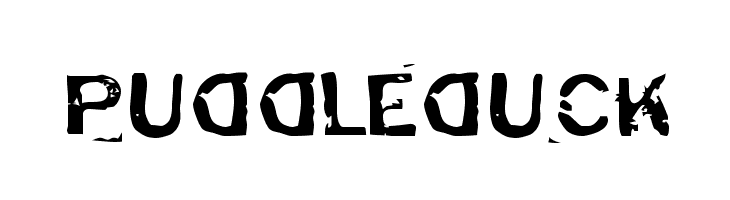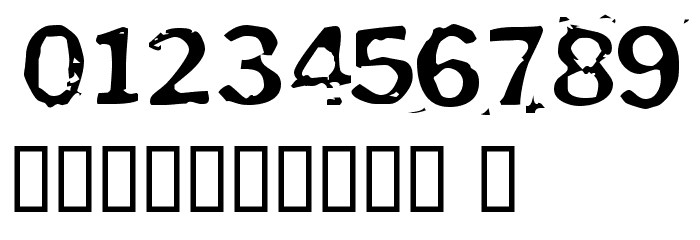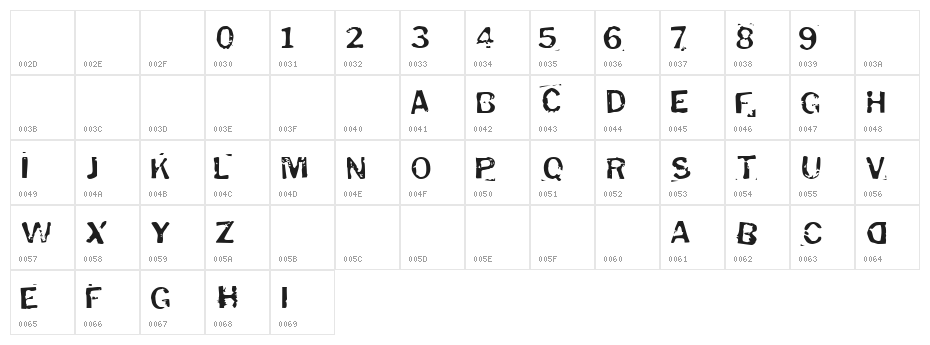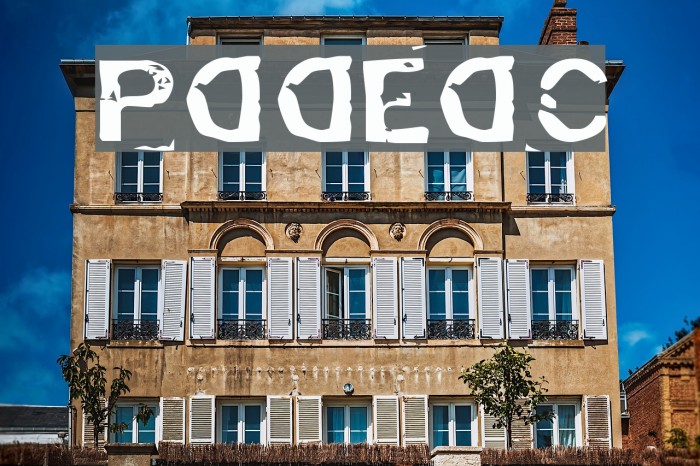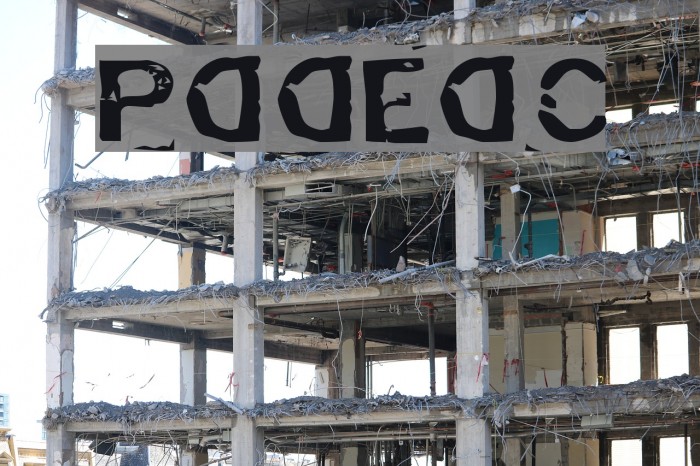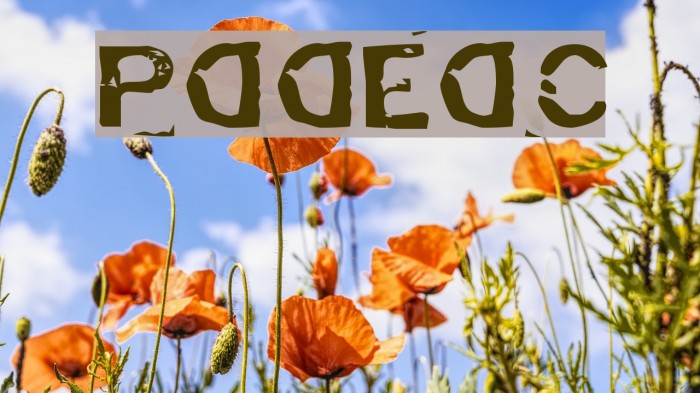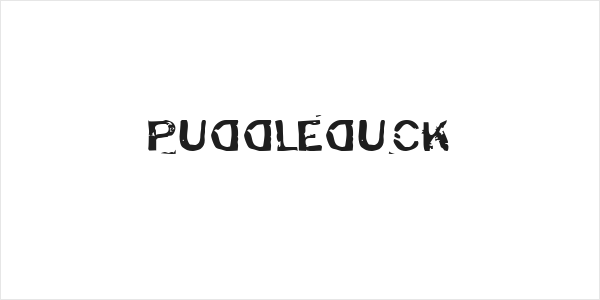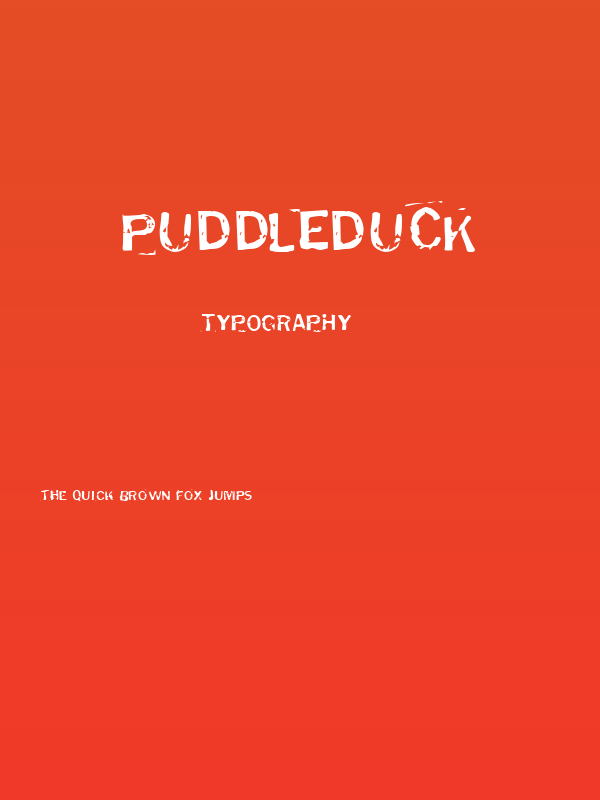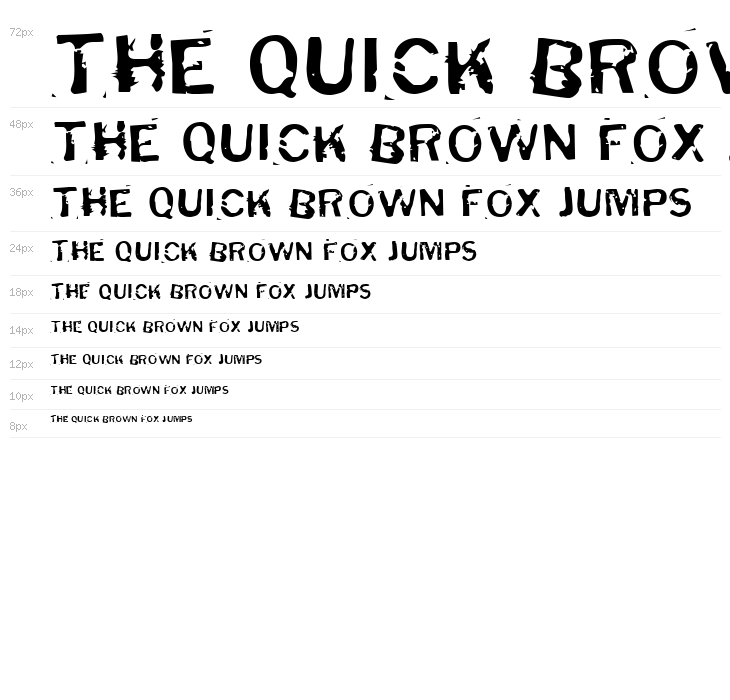
Puddleduck Font
Puddleduck Description
This font features a distressed and grungy style, characterized by irregular edges and a weathered appearance. The uppercase and lowercase letters, as well as numbers, exhibit a rough texture that suggests a worn or eroded look. The design incorporates uneven strokes and varying thicknesses, giving it a dynamic and edgy feel. The font's unique aesthetic makes it suitable for projects that aim to convey a sense of ruggedness or vintage charm. Its bold and striking appearance ensures it stands out, making it ideal for attention-grabbing designs.
| Overall Style | Grunge, Vintage |
| Proposed Projects | Ideal for posters, album covers, branding for edgy products, or any design needing a vintage or rugged feel. |